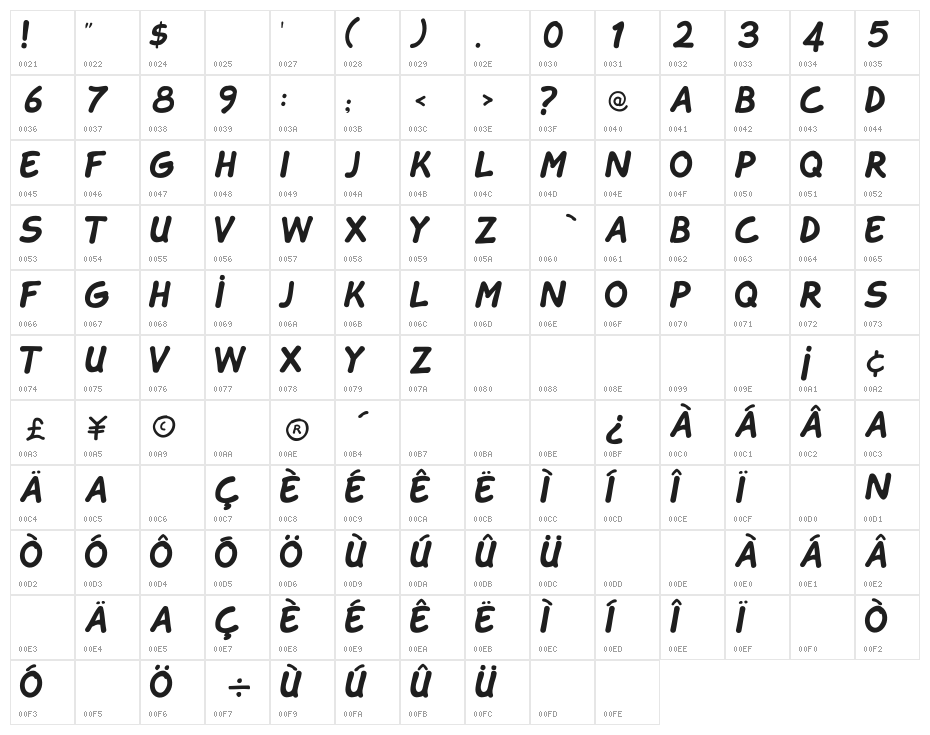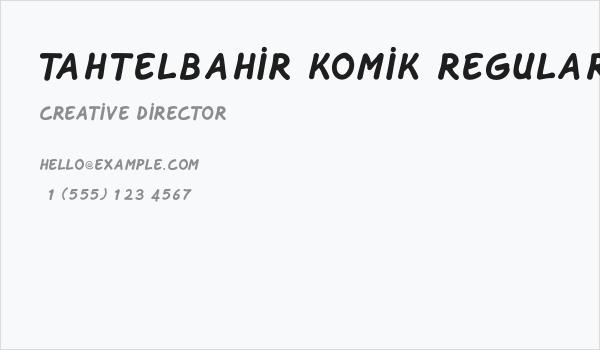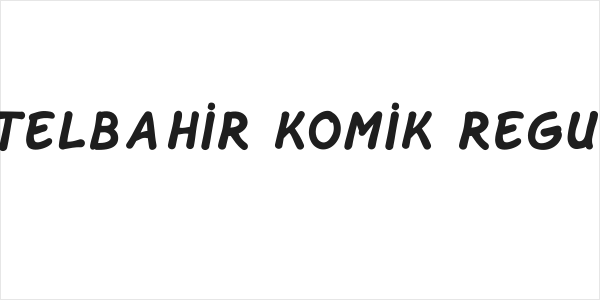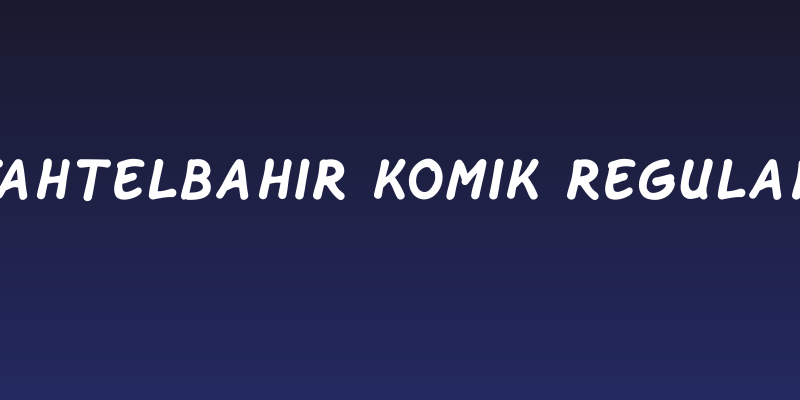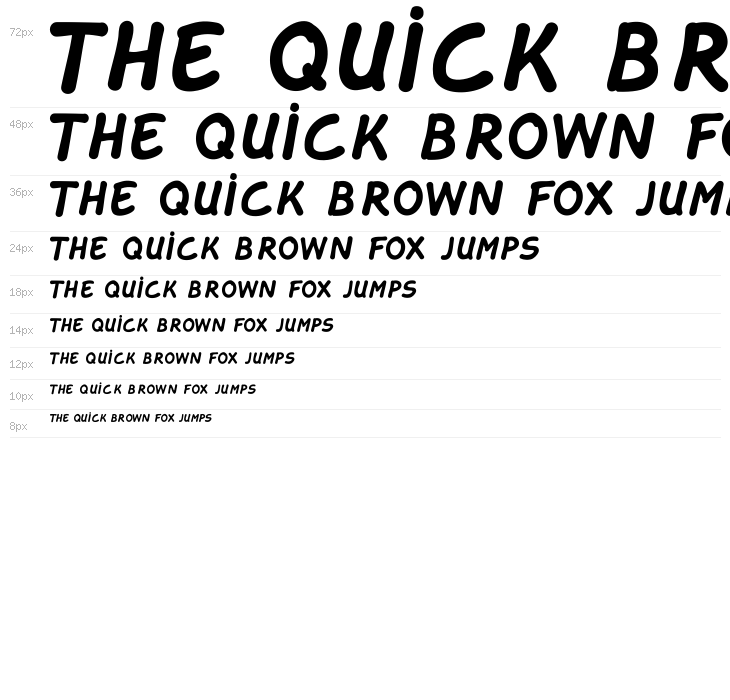
Tahtelbahir komik Regular Font
Tahtelbahir komik Regular Description
This playful and energetic font features bold, rounded characters with a hand-drawn appearance. The letters are slightly slanted, giving a dynamic and informal feel. The uppercase and lowercase letters maintain consistent styling, with smooth curves and a friendly demeanor. The numbers and special characters follow the same design principles, ensuring a cohesive look across all text elements. This font is ideal for projects that require a fun and approachable aesthetic, such as children's books, comic strips, or playful branding.
| Proposed Projects | Children's books, comic strips, playful branding, informal invitations. |